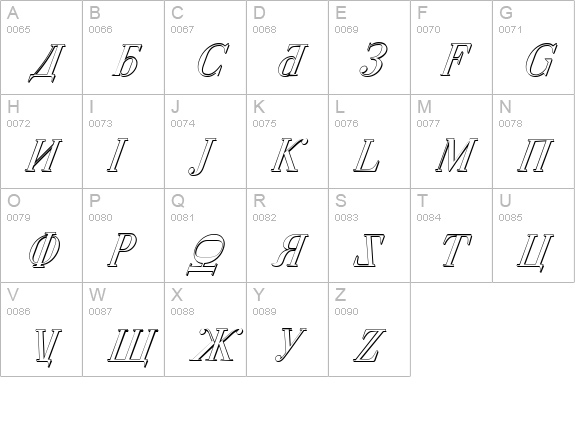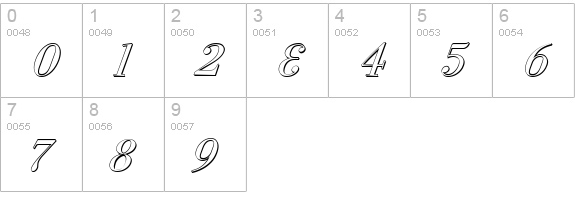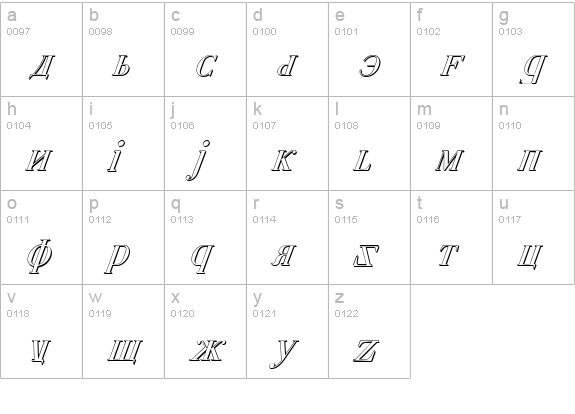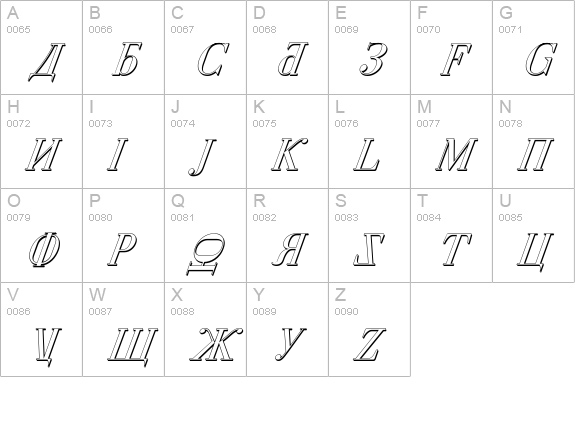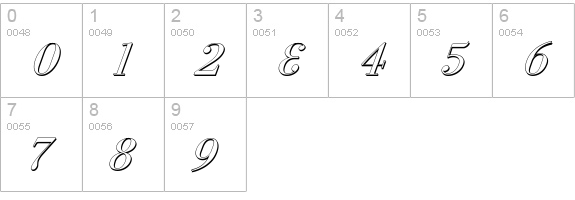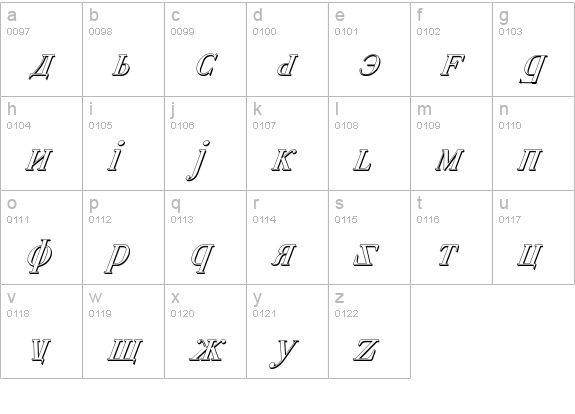
Cyberia Shadow Italic is a distinctive, italic variant in the Cyberia typeface family \xE2\x80\x94 well suited to design and typography projects.
Cyberia Shadow Italic is a sleek and modern font that exudes a sense of mystery and sophistication. With its unique italicized style and intricate shadow effects, this font is perfect for adding a touch of edginess to your design projects. Whether you're working on a cutting-edge website, a futuristic branding campaign, or a sleek editorial layout, Cyberia Shadow Italic is sure to make a bold statement. The best part? This striking font is available for free download at FontsMarket.com, making it easily accessible to designers, creatives, and font enthusiasts alike. Embrace the digital age with Cyberia Shadow Italic and elevate your projects with its dynamic and captivating aesthetic.